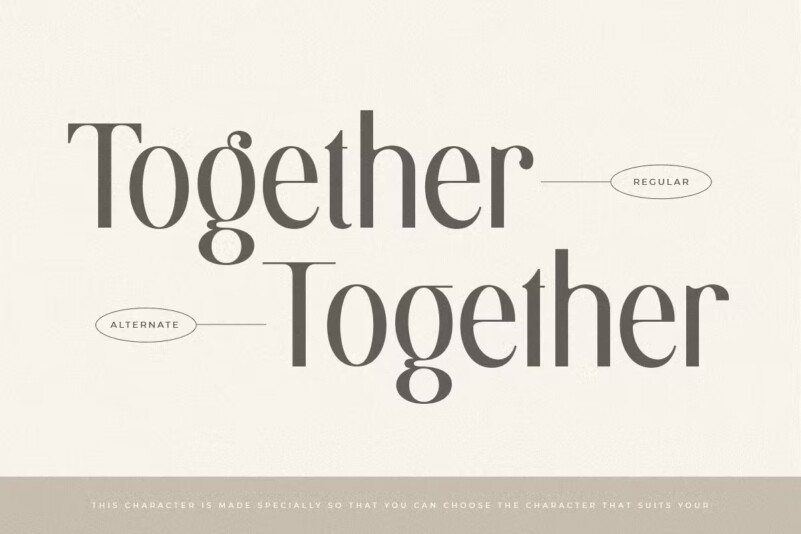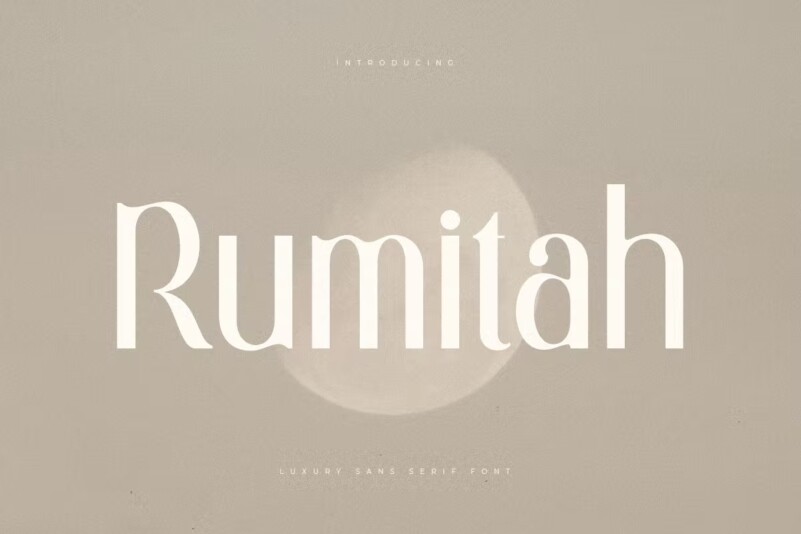
Rumitah – Luxury Sans Serif Font
A Luxury Classy Modern Sans Serif Font that special for show headline and logo with Elegant style, with unique shape will be ready to add value of your brand. It so nice to leverage designer or product owner that need solutions to make their design look more stylish and modern. And specially for Rumitah font, We prepared any characters to help you create unlimited variations for your creative needs.